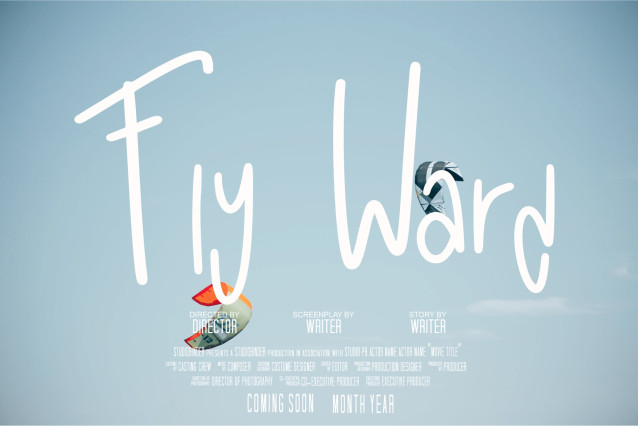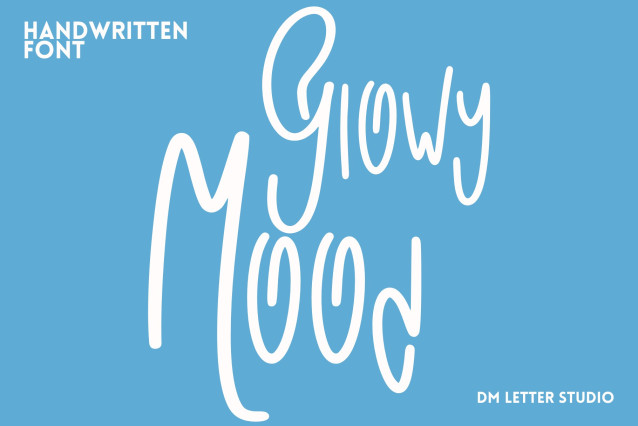
Glowy Mood Font
Glowy Mood Font is a playful handwritten script font that radiates nostalgic charm with a touch of neon flair. Its smooth, curvy strokes and glowing retro energy make it perfect for 80s-inspired designs, social media graphics, lifestyle branding, or anything that needs a cheerful and bright aesthetic. Glowy Mood feels like a handwritten note under a neon sign—warm, fun, and stylish.